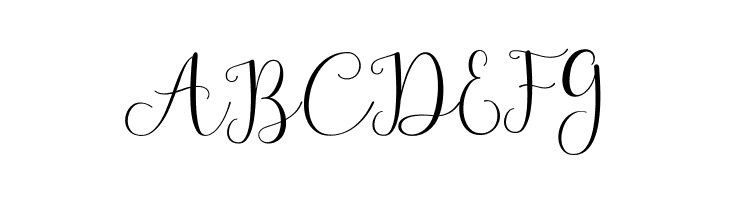
( Introducing a gorgeous and outstanding typeface that is New Wishes Modern Script Font. The typeface falls in the category of Script font family and is the best creation of Fontles. )